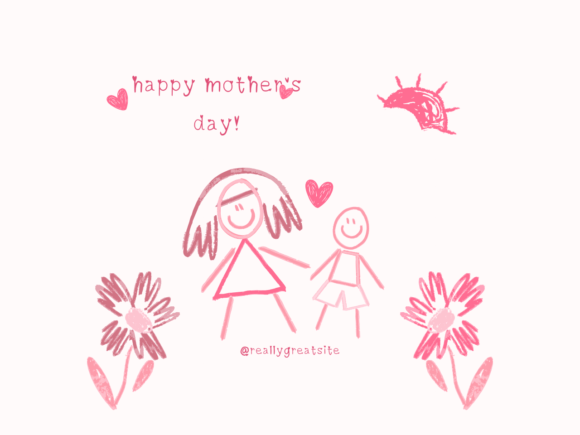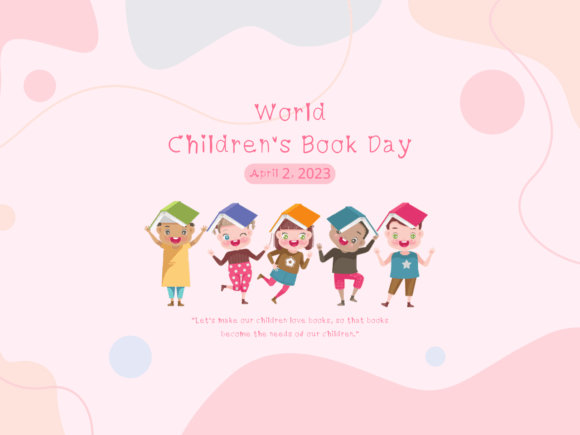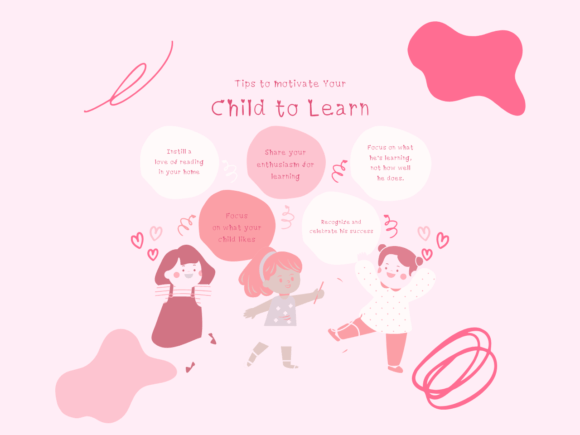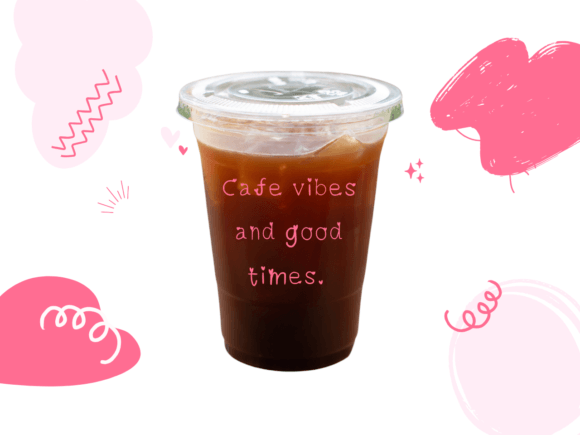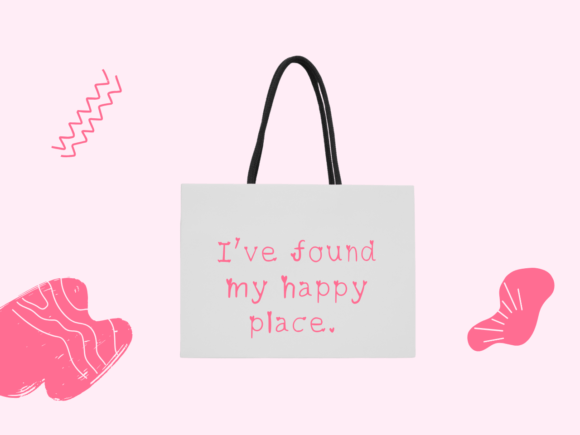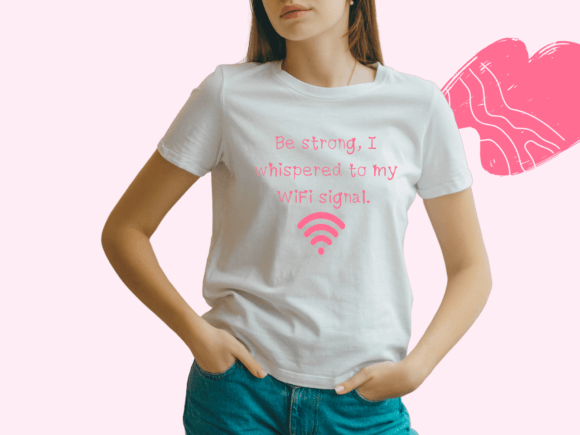
Introducing Heart Font: The Cute and Lovely Handwritten Font to Elevate Your Designs
Are you a designer or crafter looking for a font that can add a touch of warmth and personality to your projects? Look no further than Heart Font, a beautiful handwritten font that is sure to capture the hearts of your audience. With its unique and adorable touch, Heart Font is the perfect choice for anyone who wants to create designs that are both visually appealing and emotionally resonant.
What Makes Heart Font So Special?
Heart Font is a one-of-a-kind handwritten font that boasts a range of characteristics that set it apart from other fonts. Here are just a few of the features that make Heart Font so special:
- Unique and Adorable Touch: Every letter in Heart Font has been carefully crafted to have a unique and adorable touch. From the subtle imperfections to the playful flair, each letter is a work of art that will add a touch of personality to your designs.
- Cute and Lovely: Heart Font is a font that is sure to make your designs look cute and lovely. Whether you’re creating a project for a children’s brand or simply want to add a touch of whimsy to your design, Heart Font is the perfect choice.
- Handwritten with Love: Heart Font is a handwritten font that has been crafted with love and care. The imperfections and quirks of the font give it a warm and personal feel that is sure to resonate with your audience.
How to Use Heart Font in Your Designs
Heart Font is a versatile font that can be used in a wide range of design projects. Here are just a few ideas to get you started:
- Children’s Designs: Heart Font is a perfect choice for designs aimed at children. Use it to create fun and playful designs for kids’ products, packaging, or marketing materials.
- Wedding and Love-themed Designs: The romantic and whimsical feel of Heart Font makes it a great choice for wedding and love-themed designs. Use it to create beautiful wedding invitations, stationery, or social media graphics.
- Branding and Packaging: Heart Font can add a touch of personality to your brand’s packaging and marketing materials. Use it to create eye-catching labels, brochures, or business cards.
Tips for Getting the Most Out of Heart Font
Here are a few tips to help you get the most out of Heart Font:
- Experiment with Colors: Heart Font looks great in a range of colors, from bright and bold to soft and pastel. Experiment with different colors to find the perfect combination for your design.
- Play with Pairings: Heart Font can be paired with a range of other fonts to create a unique and visually appealing design. Try pairing it with a bold sans-serif font for a fun and playful look.
- Add Illustrations: Heart Font is a great choice for designs that feature illustrations. Try adding cute and playful illustrations to your design to bring it to life.
Heart Font is a beautiful handwritten font that is sure to capture the hearts of your audience. With its unique and adorable touch, cute and lovely feel, and versatility, Heart Font is the perfect choice for designers and crafters who want to create designs that are both visually appealing and emotionally resonant. Whether you’re creating a project for a children’s brand, a wedding or love-themed design, or simply want to add a touch of personality to your brand’s packaging and marketing materials, Heart Font is the perfect choice.